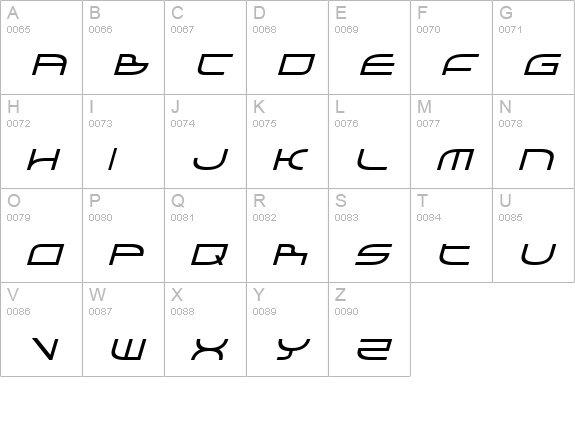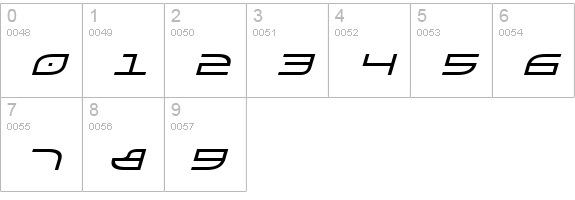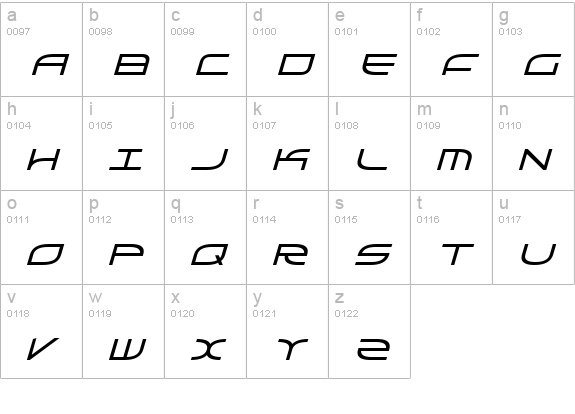
GalgaBold Italic Font Details
GalgaBold Italic is a distinctive, italic variant in the GalgaBold typeface family \xE2\x80\x94 well suited to design and typography projects.
GalgaBold Italic is a bold and stylish typeface that exudes confidence and sophistication. With its sleek curves and elegant slant, this font is perfect for making a statement in your designs. The italicized version adds a touch of flair and creativity, making it ideal for projects that require a touch of personality. Best of all, GalgaBold Italic is available for free download at FontsMarket.com. Whether you're working on a professional project or a personal creative endeavor, this font will elevate your designs and bring them to life. Don't miss out on the opportunity to enhance your work with the striking beauty of GalgaBold Italic. Download it today and let your creativity soar!